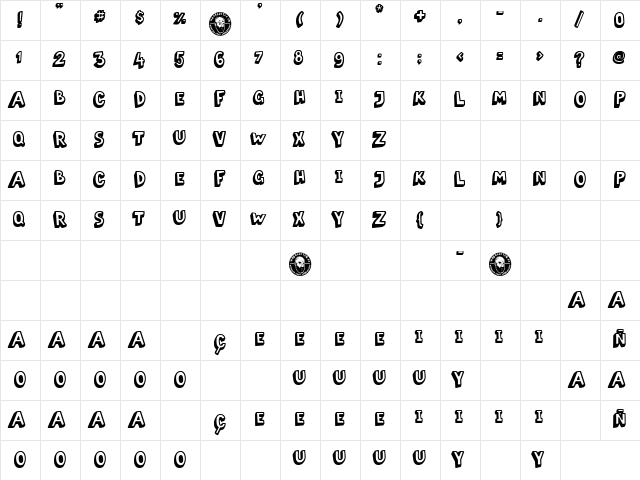
Napolitana Regular
Design Context for Napolitana Typeface
Napolitana is a composed and adaptable typeface that performs quietly and consistently across a wide range of design contexts.